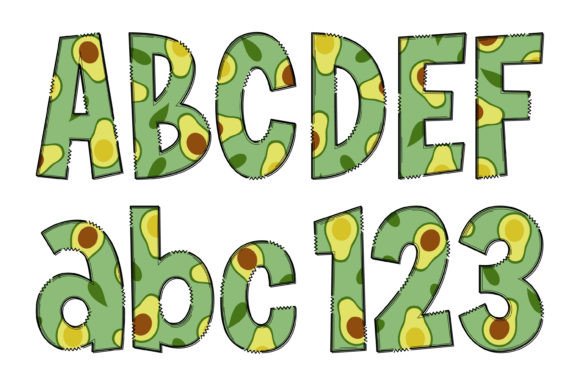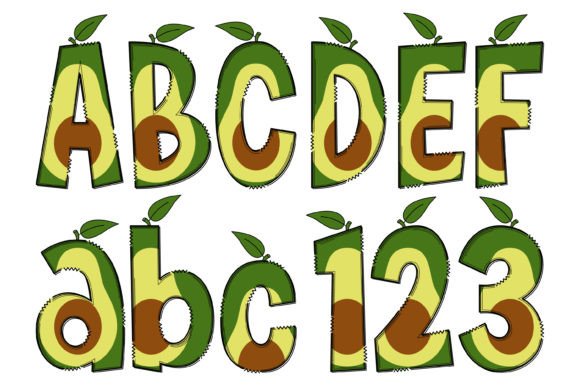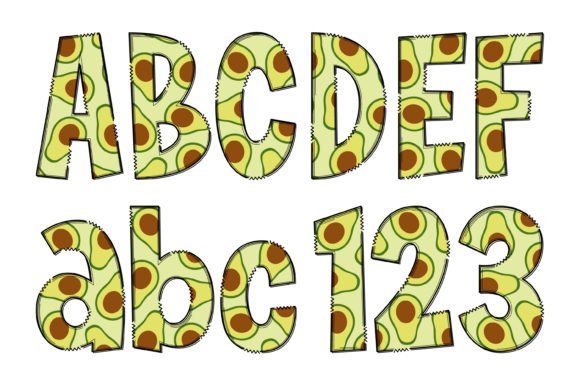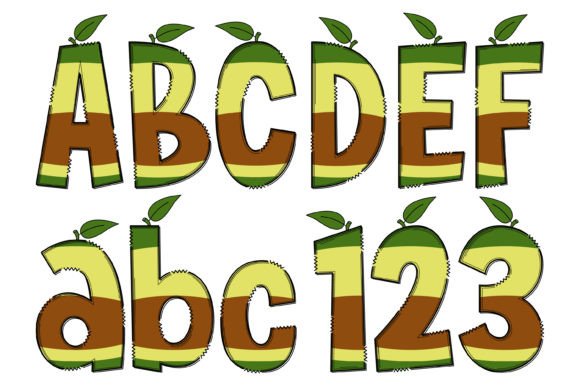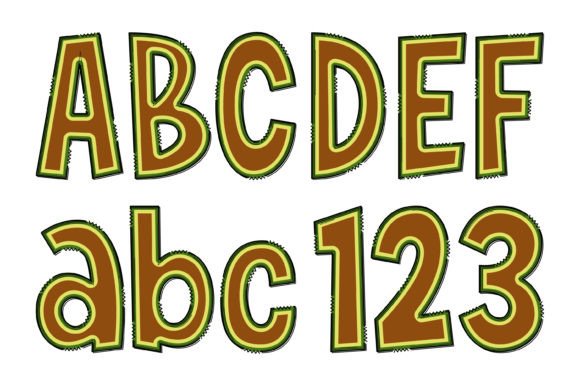
Introducing Avocado Fusion Font: A Playful and Artistic Font for Creative Designs
Are you looking for a font that can add a touch of playfulness and artistic flair to your designs? Look no further than the Avocado Fusion Font! This delightful font is perfect for designers and crafters who want to create engaging and visually appealing designs for children’s books, posters, invitations, greeting cards, and more.
The Characteristics of Avocado Fusion Font
The Avocado Fusion Font is a color font, specifically designed as an Opentype-SVG file. This means it can be used in a variety of design software, including PhotoShop, Illustrator, Silhouette, and Inkscape. Its unique and whimsical design makes it an excellent choice for designs that require a friendly and approachable tone.
Use Cases for Avocado Fusion Font
The Avocado Fusion Font is incredibly versatile and can be used in a wide range of design projects. Some popular use cases include:
- Children’s Books: The font’s playful and colorful design makes it perfect for children’s books, creating an engaging reading experience for young audiences.
- Posters: Add a touch of whimsy to your posters with the Avocado Fusion Font, making them stand out and grab attention.
- Invitations: Create unique and eye-catching invitations for parties, events, or special occasions with this delightful font.
- Greeting Cards: The Avocado Fusion Font is ideal for designing greeting cards that require a friendly and approachable tone.
Tips for Using Avocado Fusion Font
To get the most out of the Avocado Fusion Font, here are some tips to keep in mind:
- Experiment with Colors: Take advantage of the font’s color capabilities and experiment with different color combinations to create unique designs.
- Play with Size and Style: Don’t be afraid to play with the font size and style to create visual interest and hierarchy in your designs.
- Pair with Other Fonts: Consider pairing the Avocado Fusion Font with other fonts to create a contrasting and visually appealing design.
The Avocado Fusion Font is a delightful and playful font that can add a touch of artistic flair to your designs. With its whimsical design and versatility, it’s perfect for designers and crafters who want to create engaging and visually appealing designs for children’s books, posters, invitations, greeting cards, and more. By understanding its technical requirements and experimenting with its features, you can unlock the full potential of the Avocado Fusion Font and take your designs to the next level.